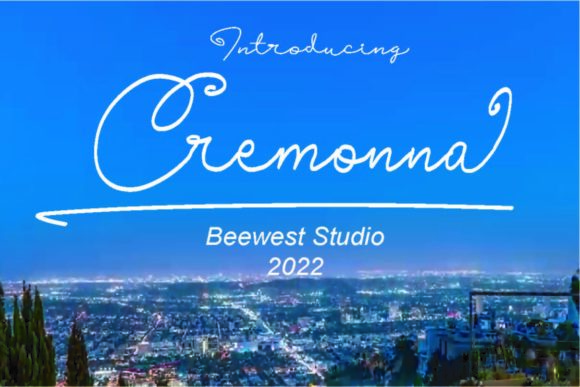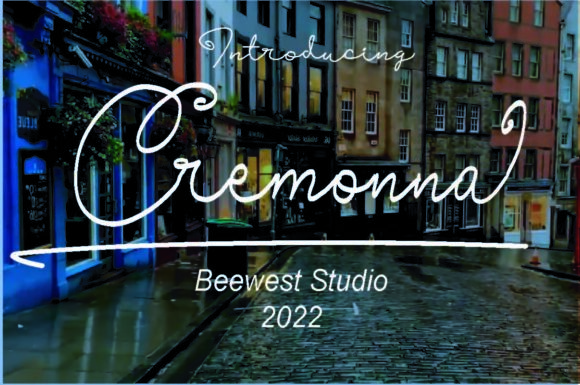
Discover the Beauty of Cremonna Font
Imagine you’re flipping through a vintage magazine, and a beautiful script font catches your eye. The words seem to dance on the page, and you can’t help but feel a sense of nostalgia and elegance. This is the kind of creative moment that inspires designers to search for the perfect font to match their vision. For those who want to add a touch of sophistication to their work, Cremonna Font is the perfect solution.
Designed to be slim and stylish, Cremonna Font is ideal for a wide range of applications, from product packaging and branding projects to magazine covers and social media graphics. Its versatility and timeless charm make it a valuable asset for designers who want to create visually appealing and engaging content.
Cremonna Font Key Features
- Font Family: Cremonna Font is a modern script font designed for various applications, including logos, branding, and body text.
- Character Count: The font family includes 800+ glyphs, covering a wide range of languages, including Latin, Cyrillic, and Greek scripts.
- Unique Characteristics: Cremonna Font features a unique, hand-drawn design with a mix of elegant and playful elements, making it perfect for creative and artistic projects.
Designer Review: Cremonna Font
Overall, I’m impressed with the Cremonna font. Its elegant, cursive design is perfect for creative projects that need a touch of sophistication. ✨ Here are some of the things I like about it:
- Beautiful script style that adds a personal touch
- Highly legible even at smaller font sizes
- Works well for titles, headings, and body text
- The font may not be suitable for projects that require a more modern or minimalist aesthetic
- The cursive design can be difficult to read at very small font sizes
- The font family is relatively small, with only a few weights and styles available
In terms of overall impression, I think the Cremonna font is a great choice for designers who want to add a touch of elegance and sophistication to their projects. While it may not be suitable for every project, it’s a great option for those who need a beautiful, cursive font that’s easy to read and use.
For a more professional look, pair the Cremonna Font with a clean and minimalist design.
The Cremonna Font is ideal for:
- Food and restaurant branding
- Travel and adventure marketing
- Personalized gifts and merchandise
Remember to use the Cremonna Font in a way that complements your brand and message.
Alternatives to Cremonna Font
Great Vibes is a modern calligraphy font that is perfect for creative projects, wedding invitations, and branding materials. It is ideal for designers who want to add a touch of elegance and sophistication to their designs. Compared to Cremonna Font, Great Vibes is more cursive and flowing, making it suitable for projects that require a more organic feel.
Carolyna Pro is a versatile script font that is suitable for a wide range of projects, including logos, packaging, and editorial designs. It is ideal for designers who want a font that is both elegant and readable. Compared to Cremonna Font, Carolyna Pro is more refined and polished, making it suitable for projects that require a more professional tone.
Alex Brush is a handwritten font that is perfect for creative projects, such as posters, flyers, and social media graphics. It is ideal for designers who want to add a touch of personality and whimsy to their designs. Compared to Cremonna Font, Alex Brush is more playful and casual, making it suitable for projects that require a more relaxed tone.
What is the recommended line height for Cremonna Font?
The recommended line height for Cremonna Font is 1.2 to 1.5 times the font size. This ensures optimal readability and balance between text and layout.